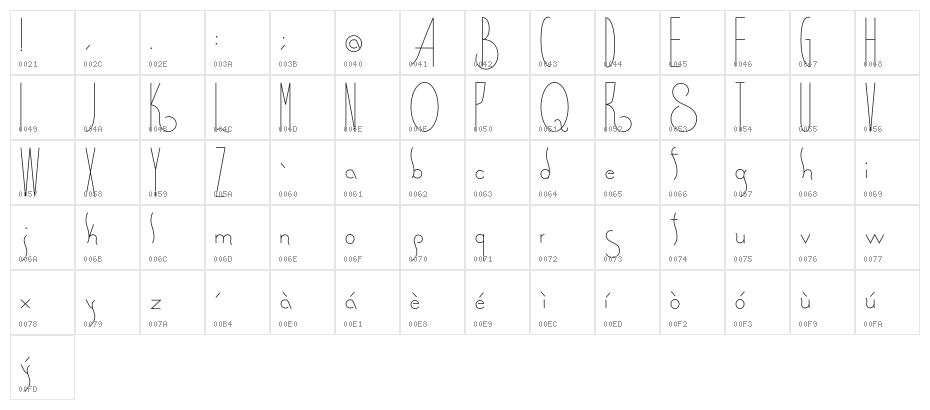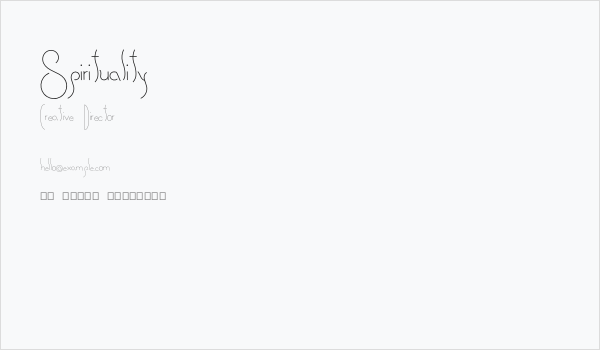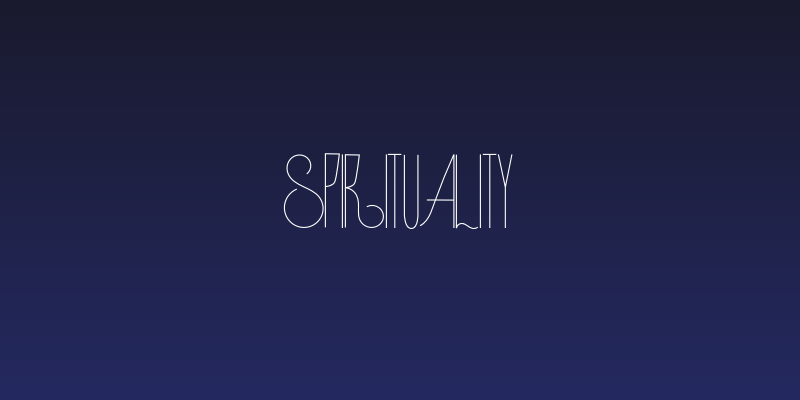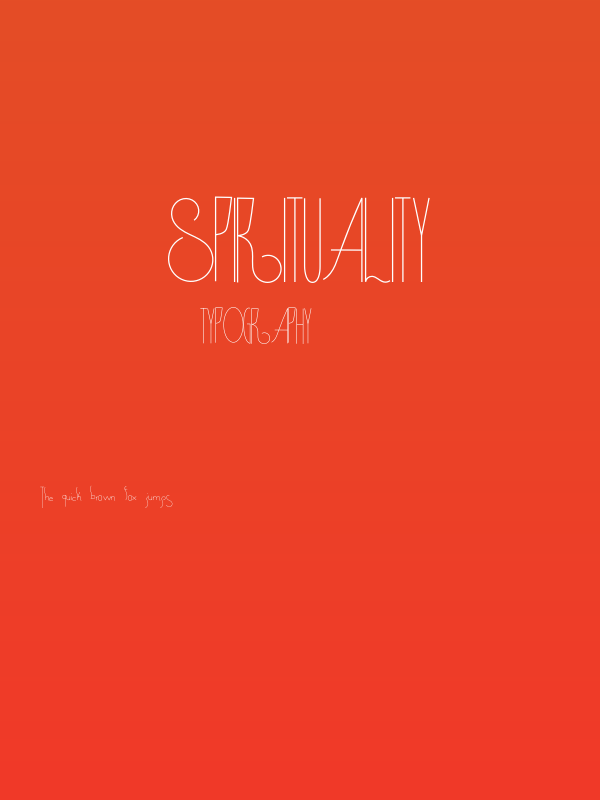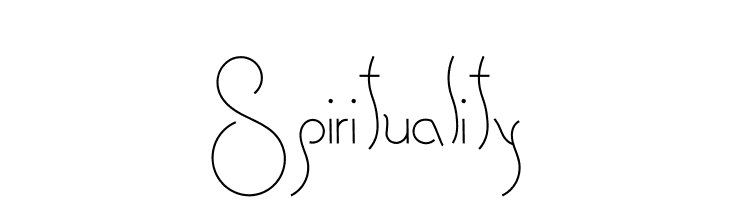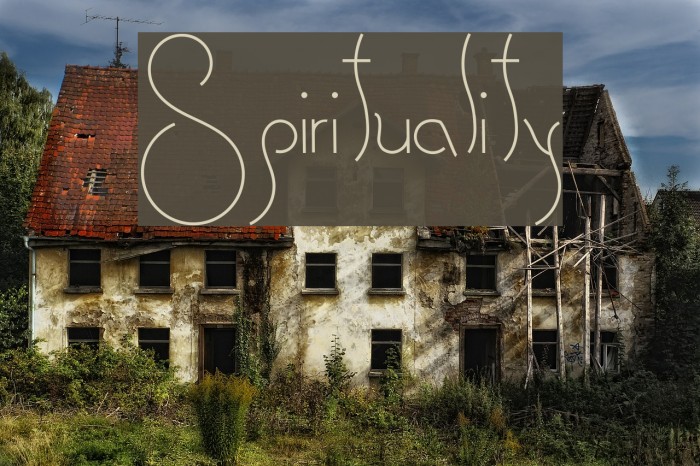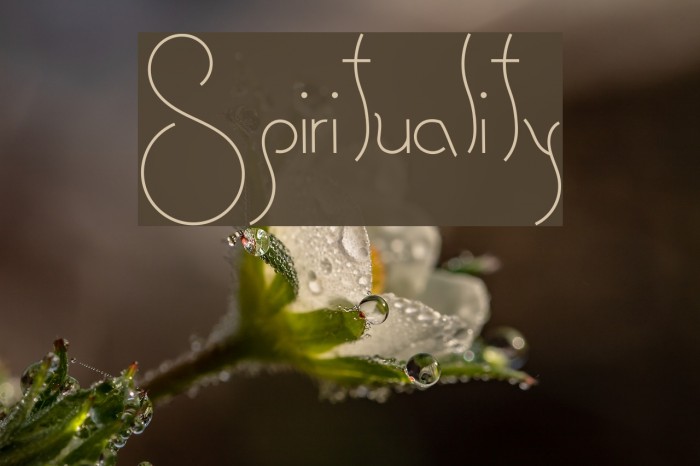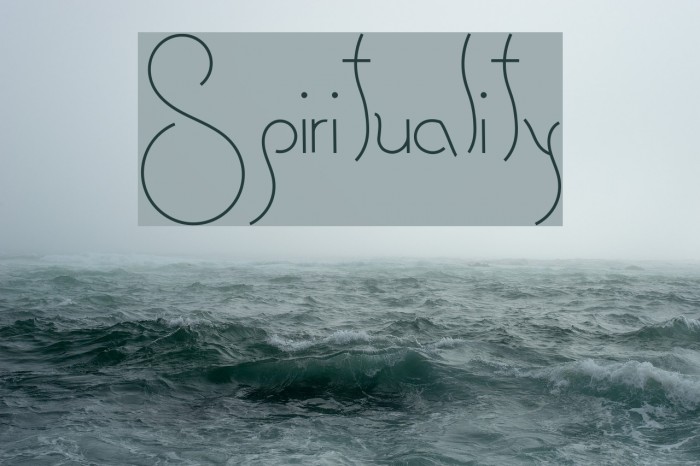
Spirituality Font
Spirituality Description
This font features an elegant and artistic design with elongated and slender letterforms. The uppercase letters are particularly tall and narrow, giving a sense of sophistication and modernity. The lowercase letters maintain a consistent style, with unique curves and loops that add a whimsical touch. The overall appearance is delicate, with thin strokes that create a light and airy feel. The font's distinctive character shapes make it suitable for creative and expressive projects, where a touch of elegance and uniqueness is desired.
| Proposed Projects | Ideal for wedding invitations, artistic posters, branding for luxury products, and editorial design. |